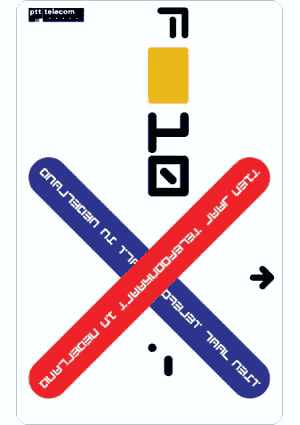
Chip 01, Max
Kisman. 1996.
Chip 01 was designed for, and used on a high-tech transparent
telephone card for the Royal Dutch Telecommunications Company, to
give this card its own identity with a technological reference.
Chip 02 (2002) is an adapted version of its predecessor, with increased
legibility.